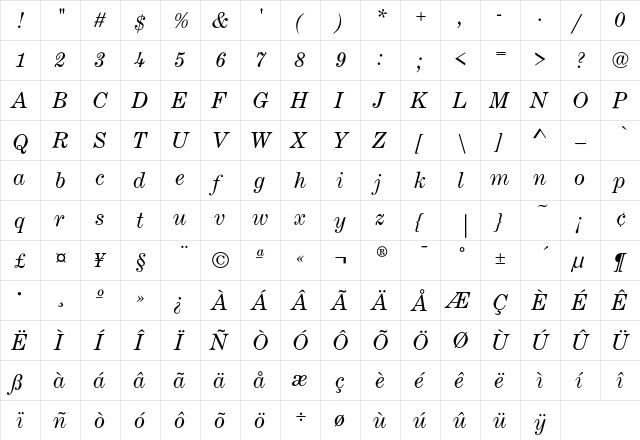
CenturyExpEF RegularItalic
Design Context for CenturyExpEF Typeface
CenturyExpEF is a composed and adaptable typeface that performs quietly and consistently across a wide range of design contexts. The dynamic lean of this cut emphasises speed and emphasis in any layout.
Pro Tip: Try CenturyExpEF for annotation and caption copy alongside an upright companion — the contrast in angle creates a dynamic but ordered typographic system.